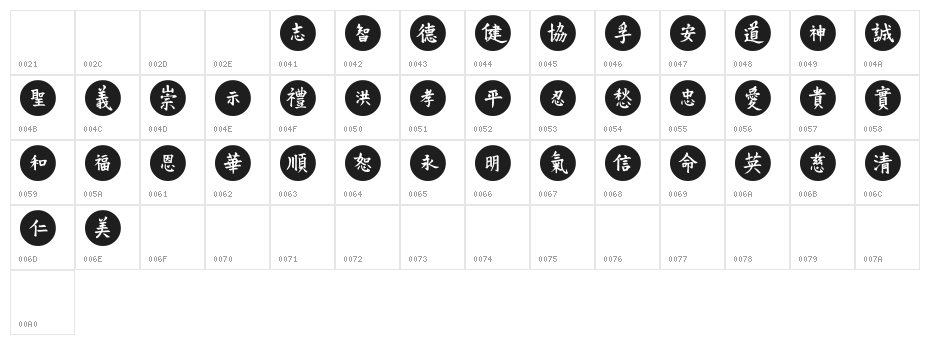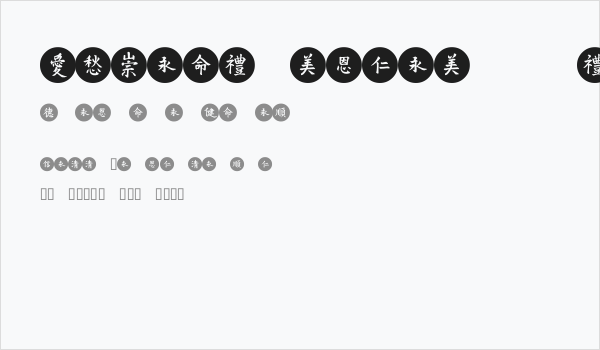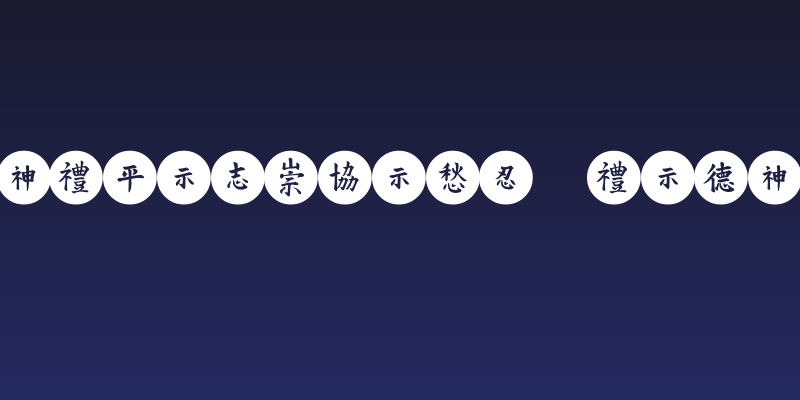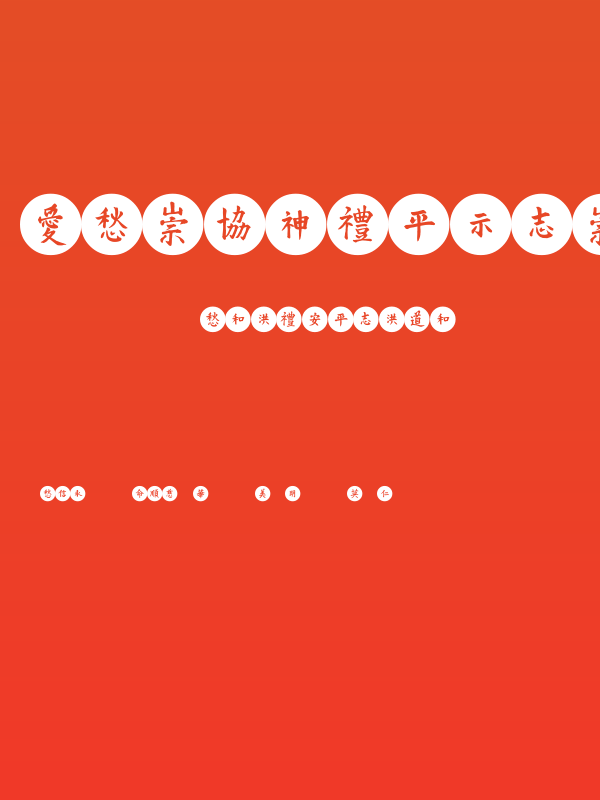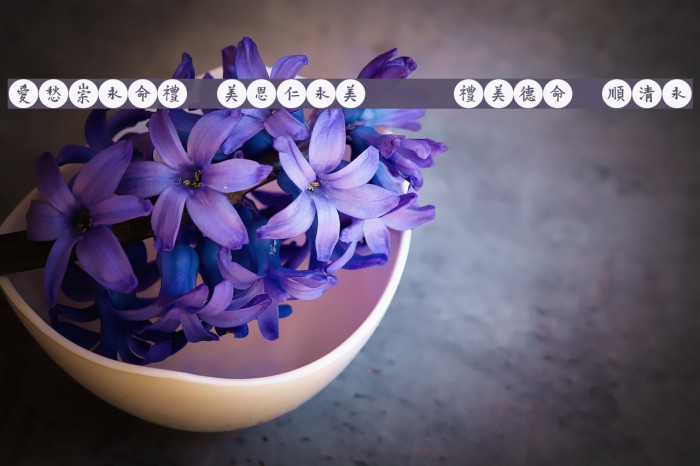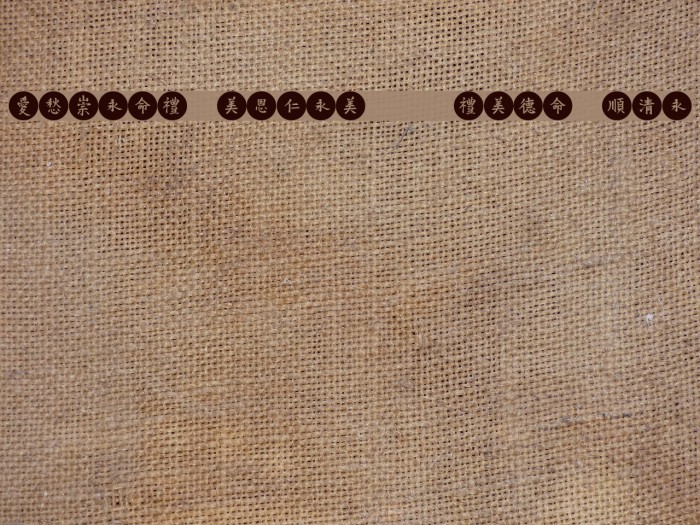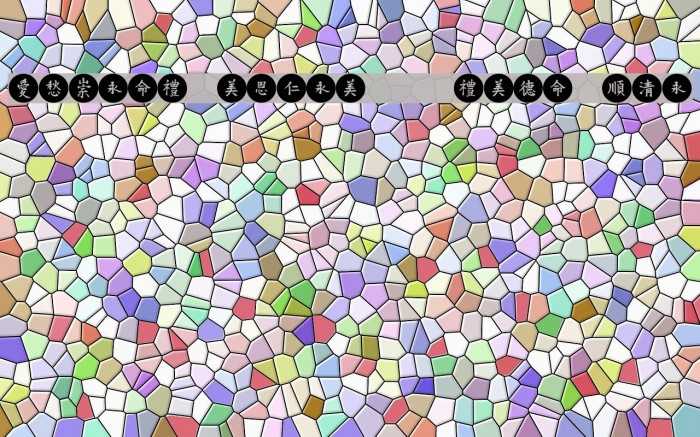
VTMeiOrnaments OnCircle Font
VTMeiOrnaments OnCircle Description
This design features a series of intricate Chinese characters enclosed within circular shapes, creating a harmonious blend of traditional calligraphy and modern design elements. The characters are elegantly styled, with each stroke carefully crafted to maintain a balance between boldness and delicacy. The circular enclosures add a decorative touch, making the design suitable for ornamental purposes. The overall appearance is both classic and sophisticated, with a hint of cultural richness that can enhance various creative projects.
| Overall Style | Classic |
| Use Case | Logos, Decorative art, Cultural branding |
| Proposed Projects | Ideal for cultural event branding, decorative art pieces, traditional-themed invitations, or educational materials focusing on Chinese language and culture. |